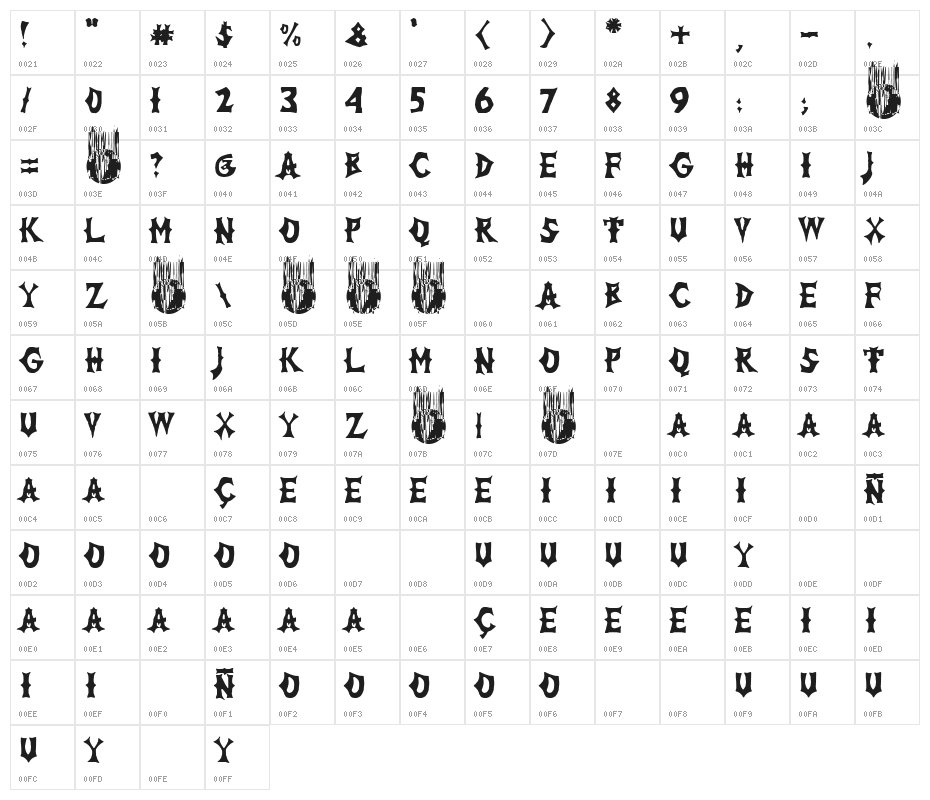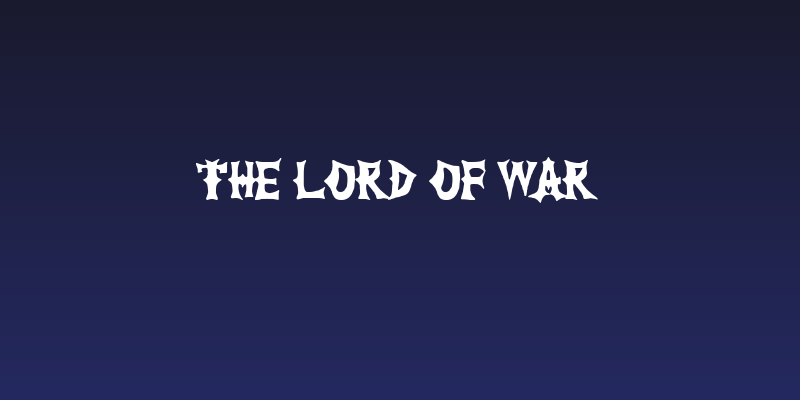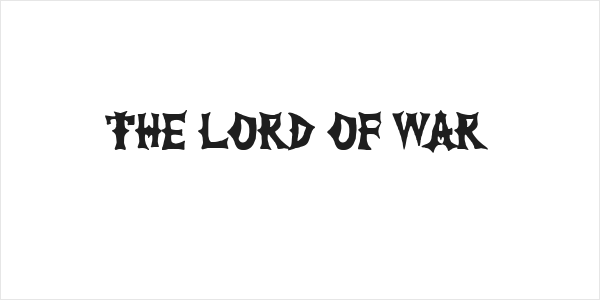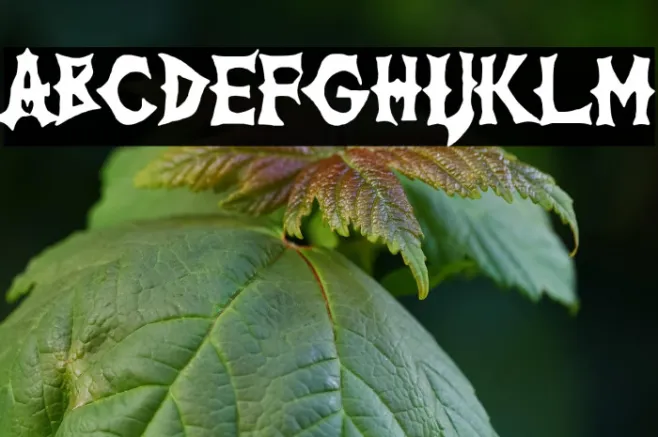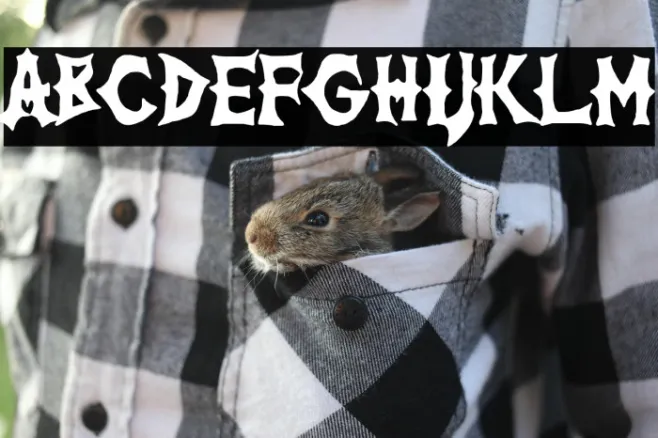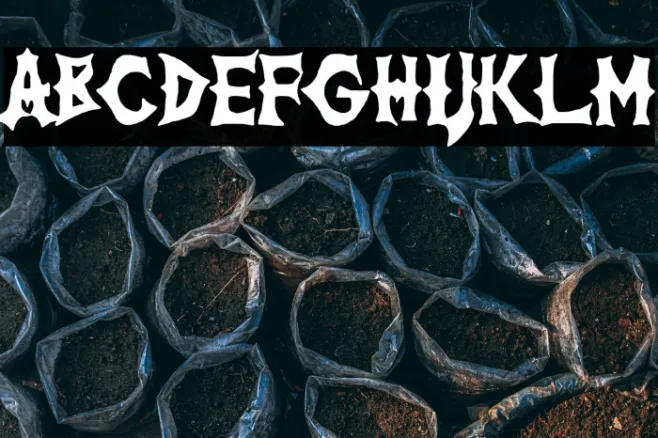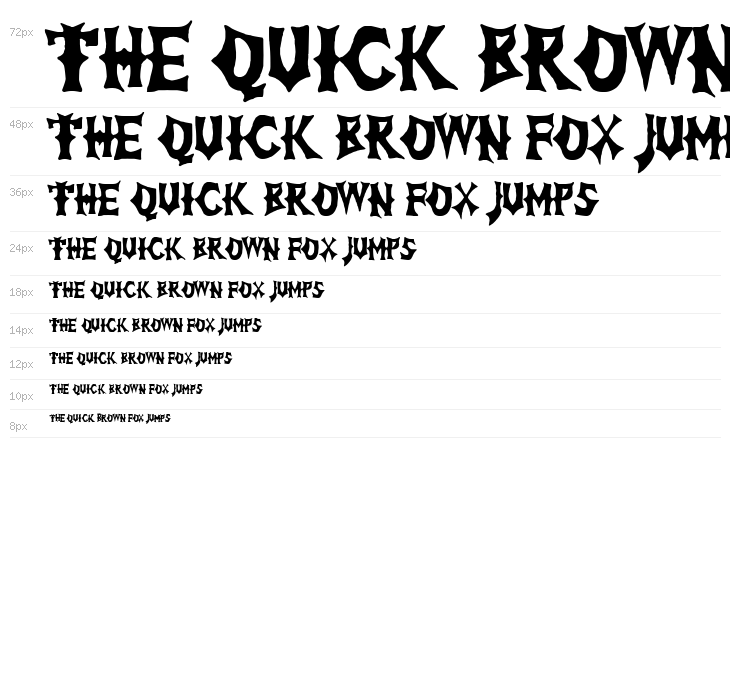
The Lord of War Font
The Lord of War Description
This font features a bold and aggressive style with sharp, angular edges and a heavy weight. The characters are designed with a rugged, battle-worn appearance, evoking a sense of strength and power. The uppercase and lowercase letters maintain a consistent design, with exaggerated serifs and a slightly condensed form. Numbers and special characters follow the same bold and dynamic style, making them stand out with a commanding presence. The overall design is reminiscent of medieval or fantasy themes, perfect for projects that require a dramatic and impactful look.